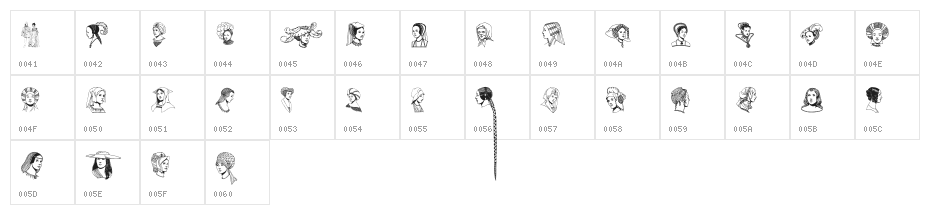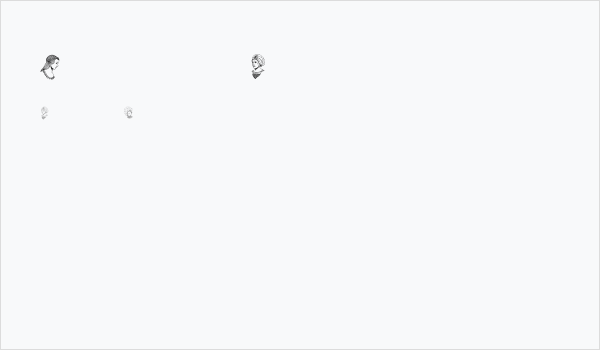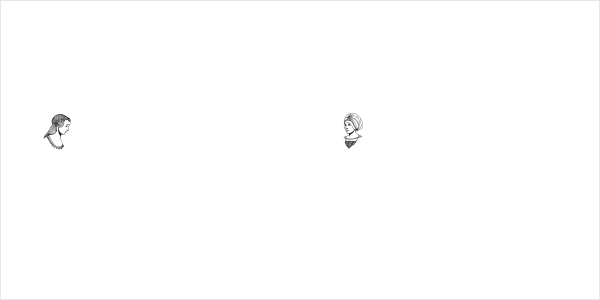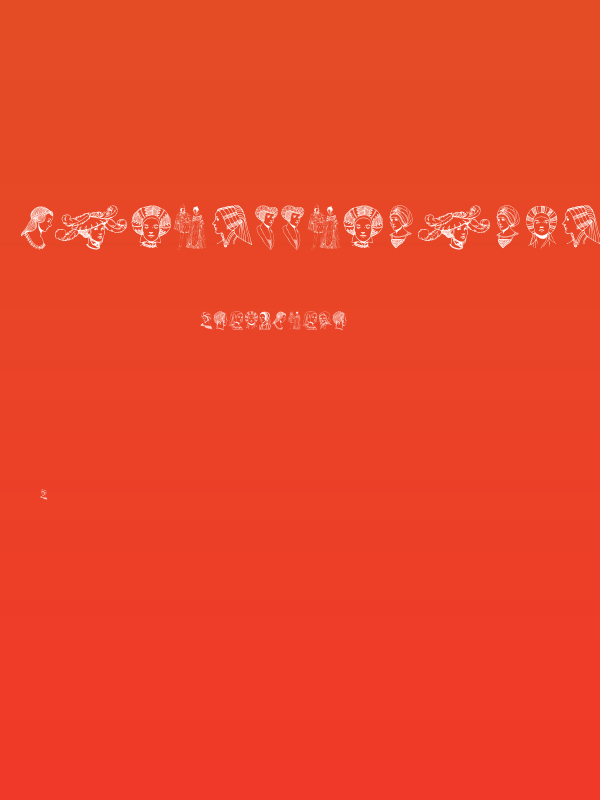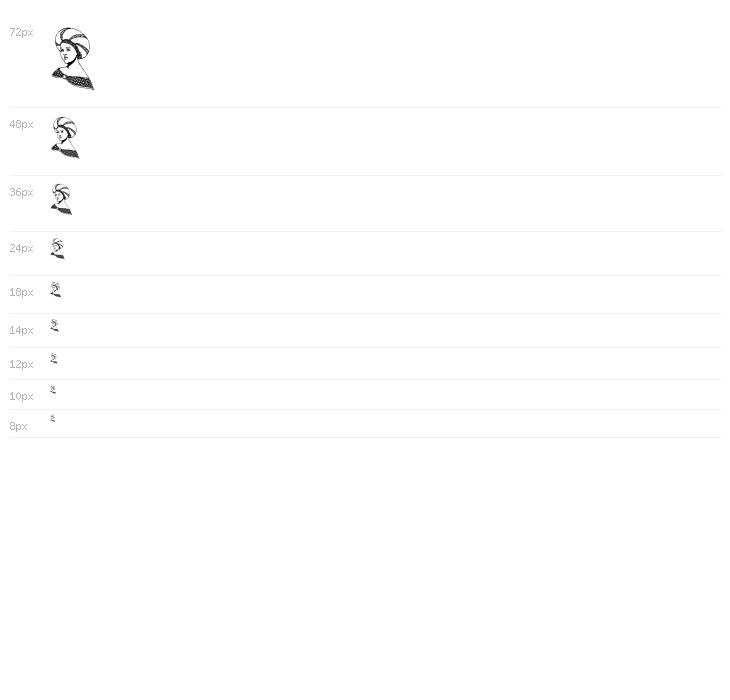
RenaissanceCoiffure Font
RenaissanceCoiffure Description
A decorative collection of detailed black-and-white illustrations depicting Renaissance-era coiffures and headwear, featuring historical women's profiles and elaborate hairstyles. Each character is represented by a unique portrait, emphasizing period fashion and intricate line work.
| Overall Style | Decorative, Vintage, Historical |
| Use Case | Logos, Headlines, Themed graphics, Educational displays |
| Proposed Projects | Historical posters, educational materials, themed invitations, decorative headings, museum displays. |